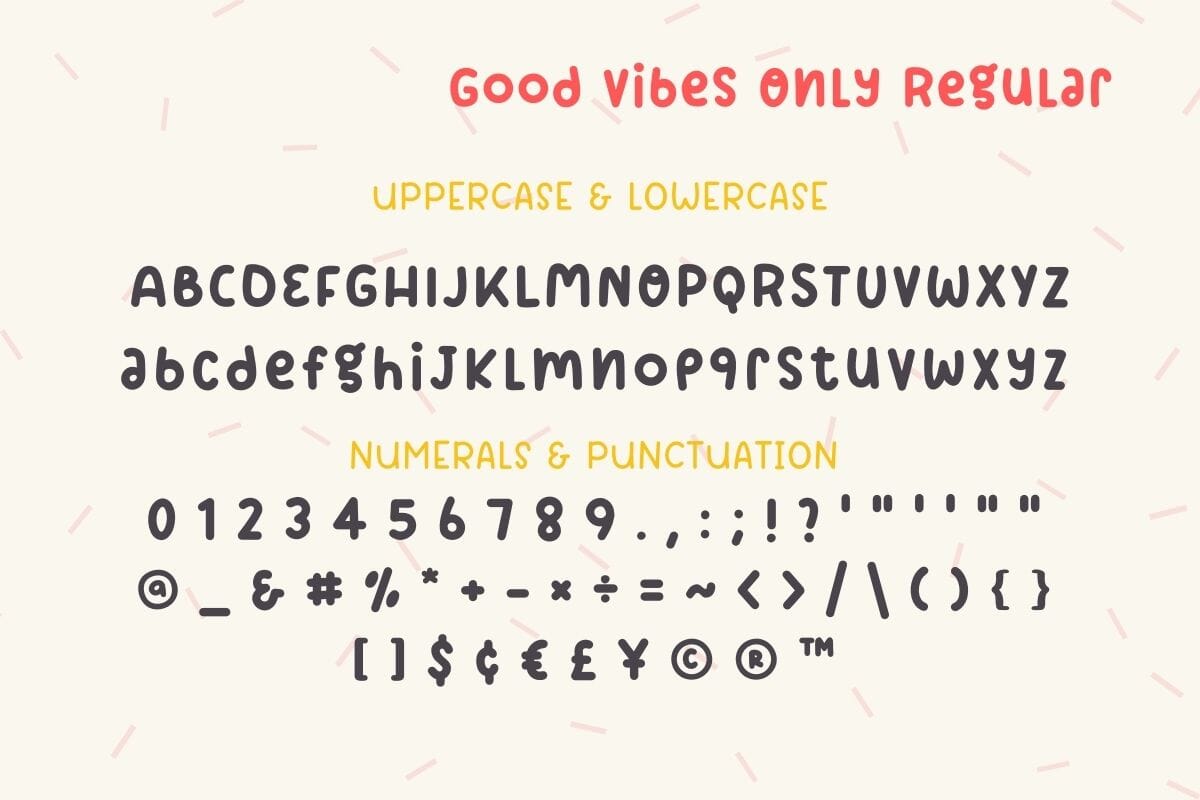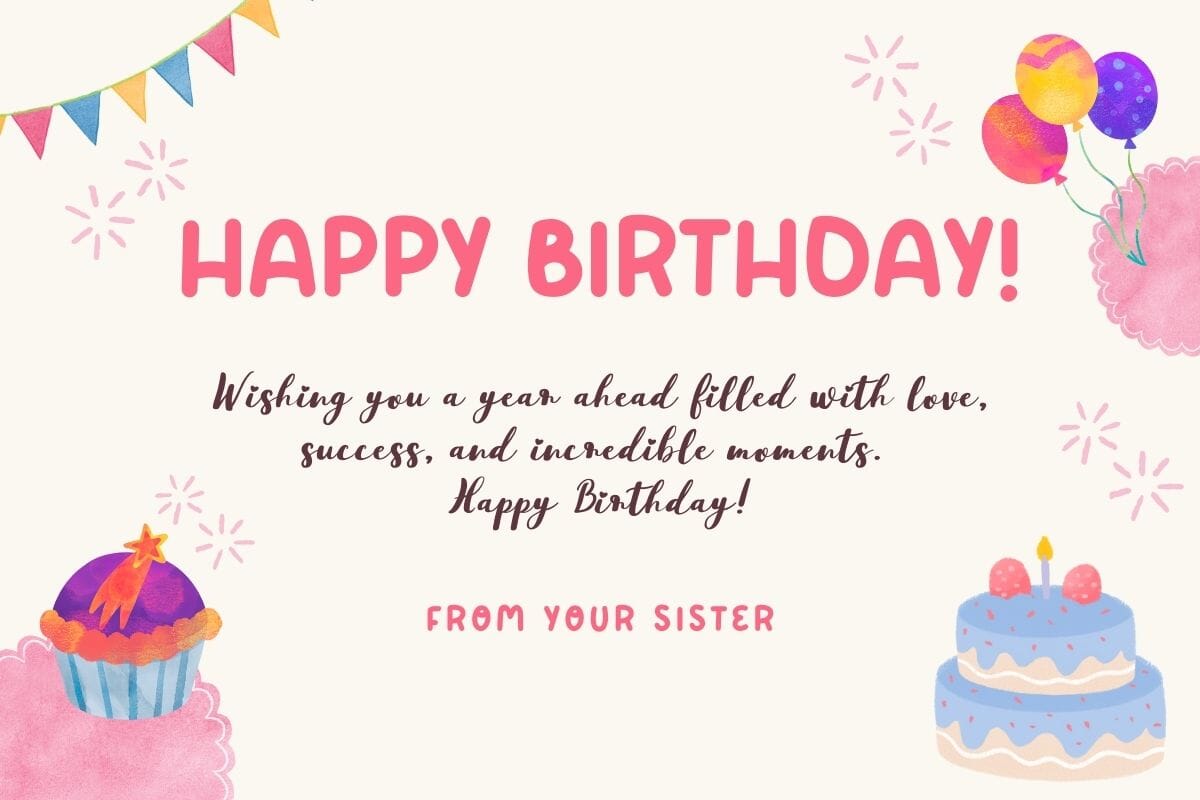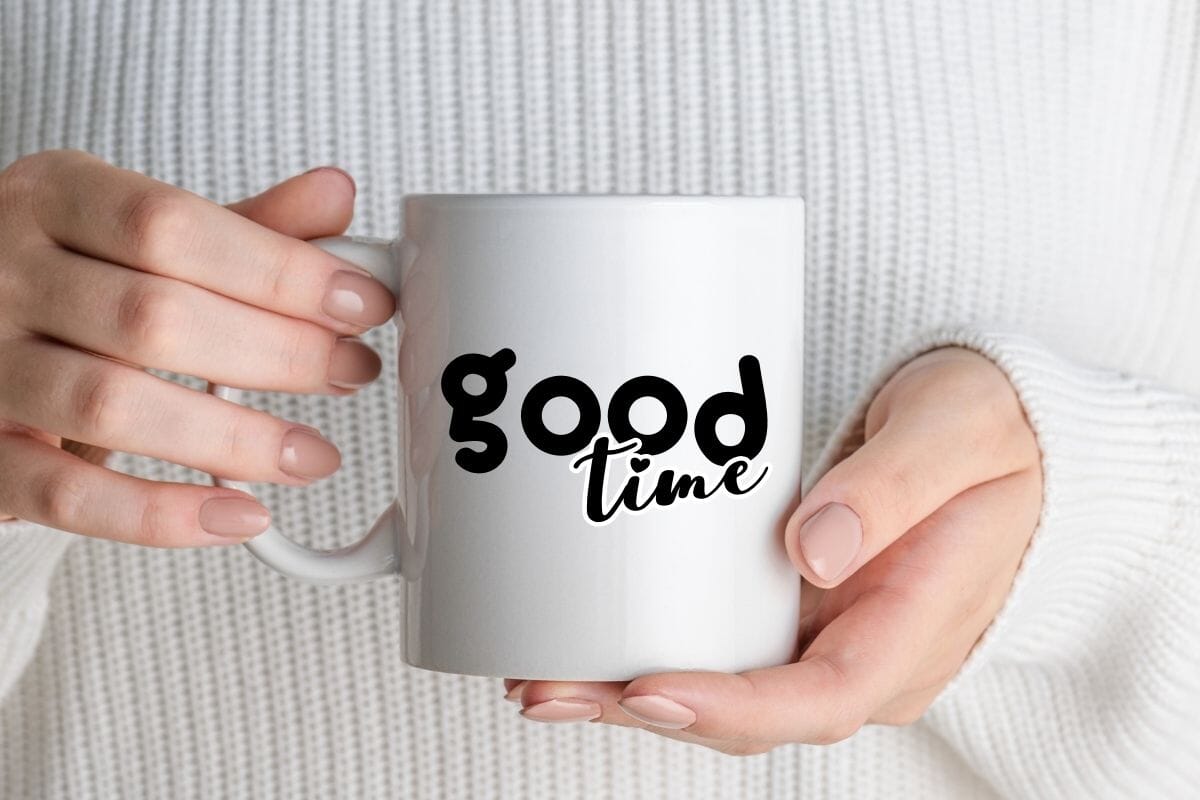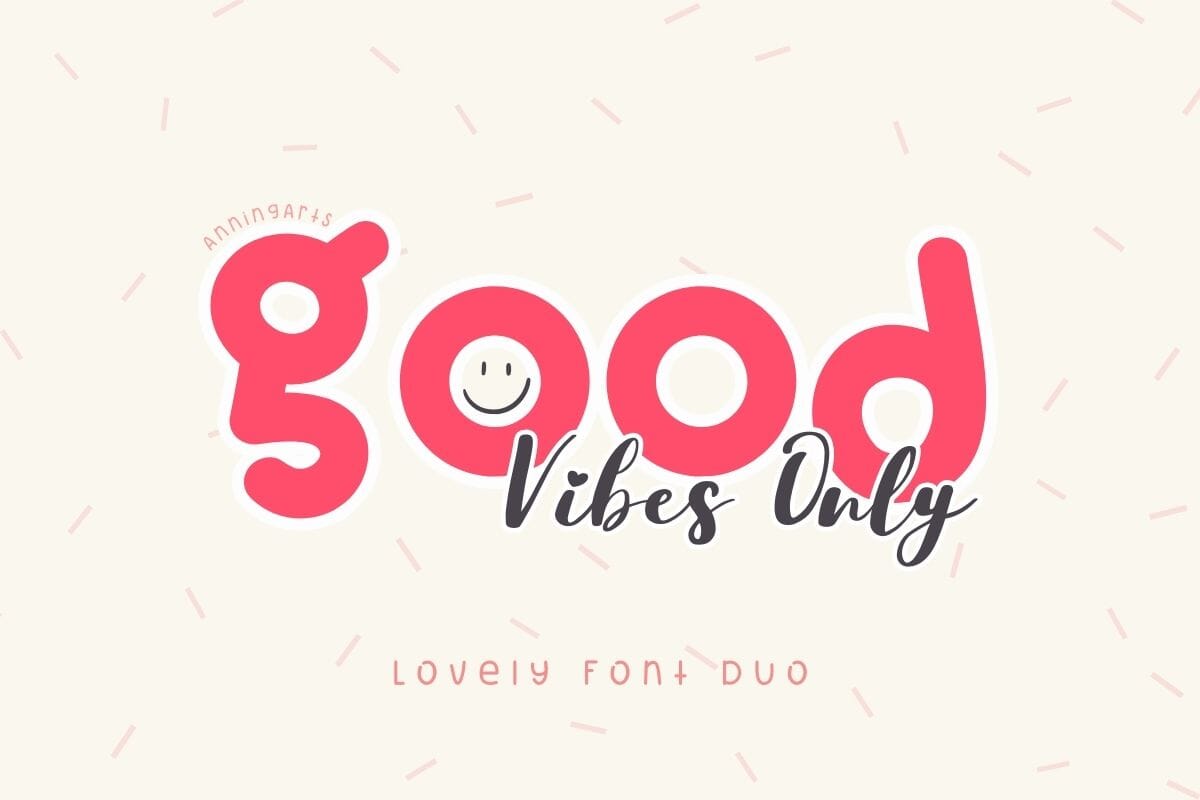
About Good Vibes Only – Font Duo
Good Vibes Only is a cute handwritten font duo (sans and script). Masterfully designed to become a true favorite, this font has the potential to bring each of your creative ideas to the highest level! Perfect for creating a wide variety of new designs to match products such as banners, content, mugs, cards, shirts, stationery, social media posts, and more! *You will receive 1 Zip file: 2 OTF and 2 TTF Files Thank you!